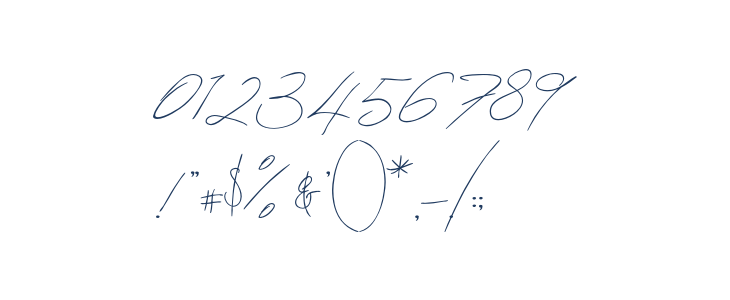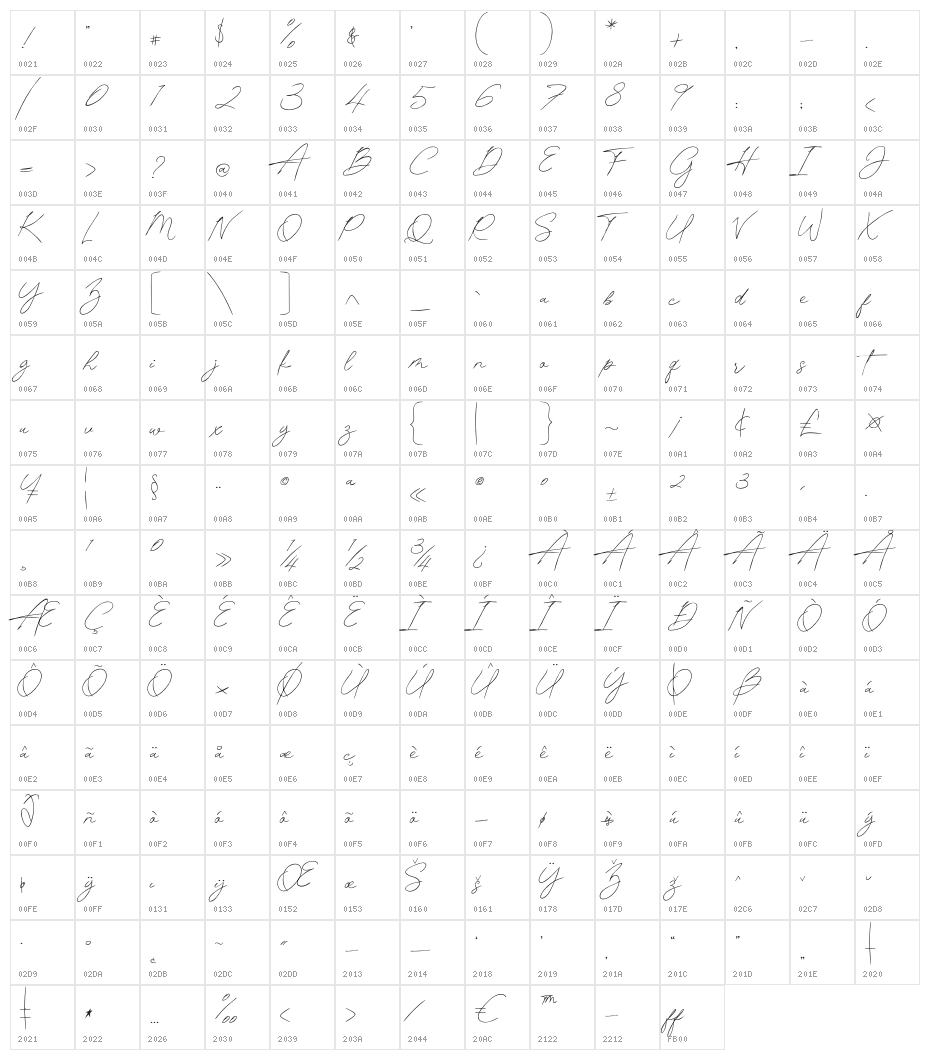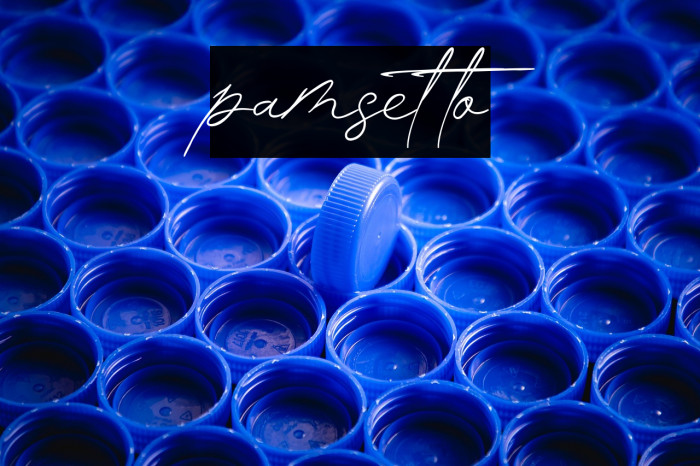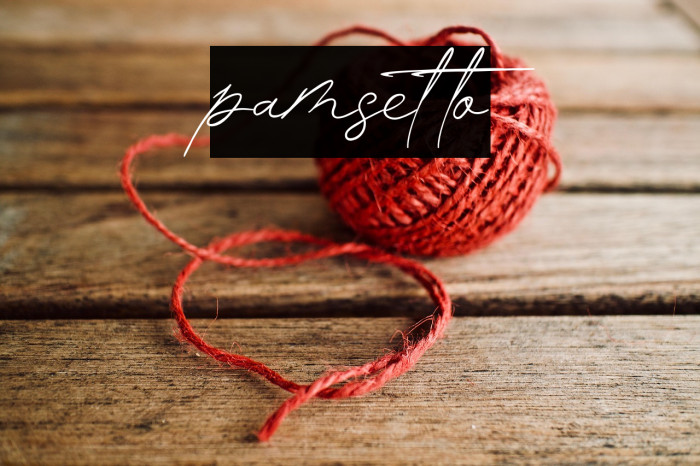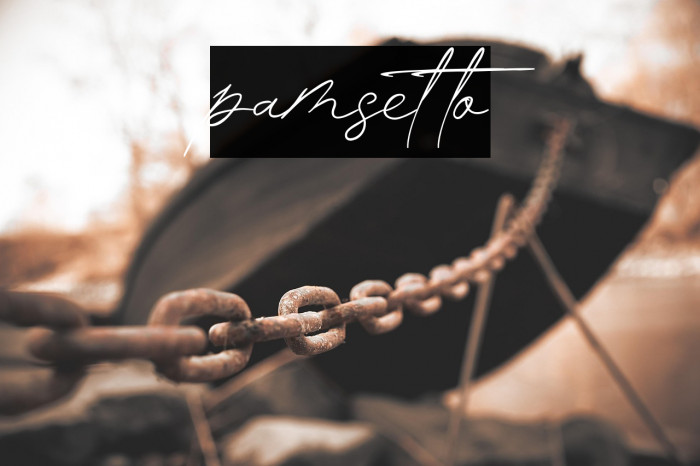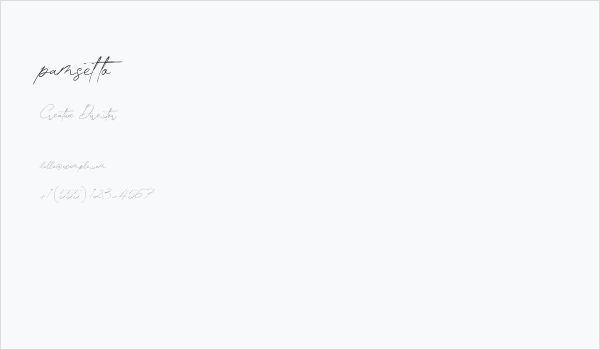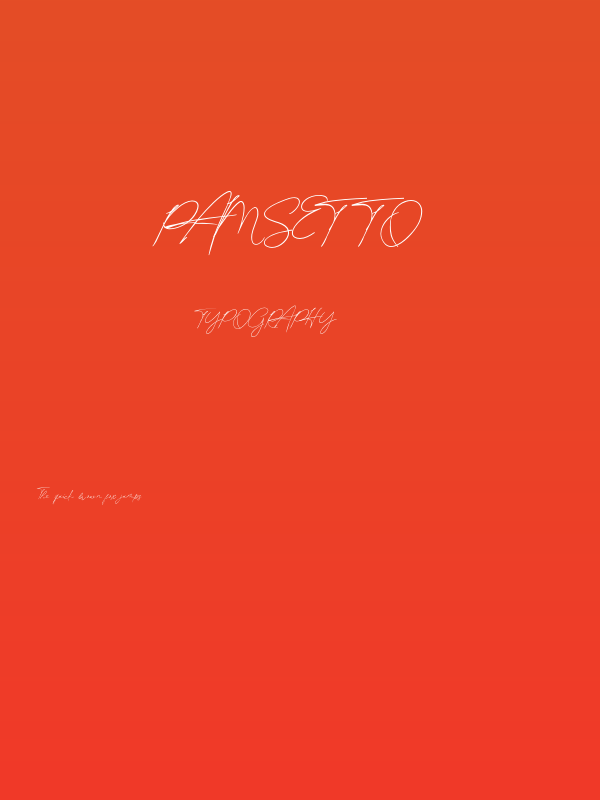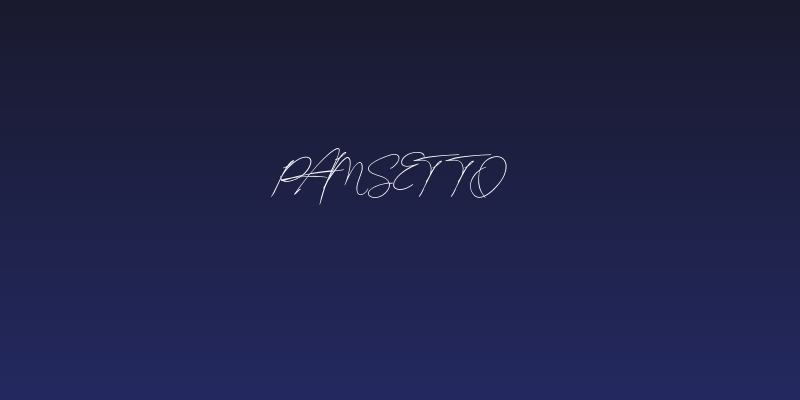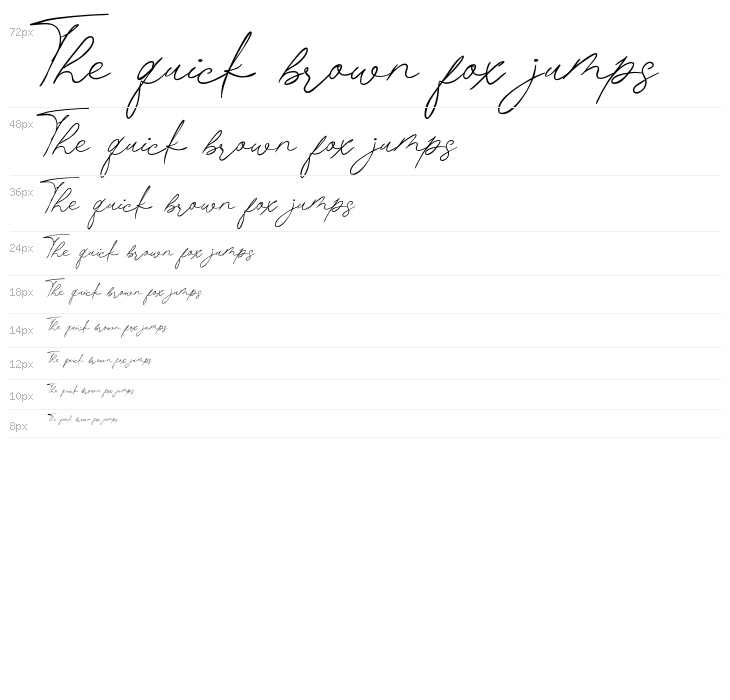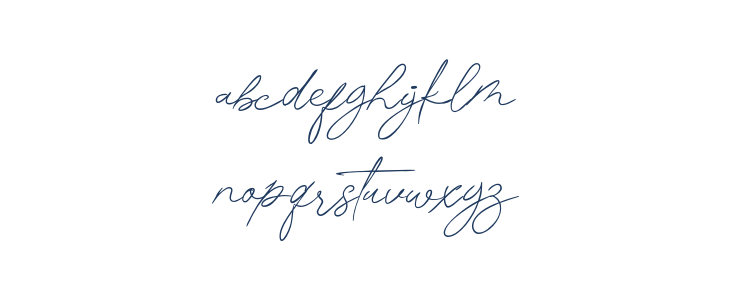
pamsetto Font
pamsetto Description
This font exhibits a fluid, cursive style that mimics elegant handwriting. The characters are connected with smooth, flowing lines, creating a sense of motion and grace. The uppercase letters are slightly more elaborate, with extended loops and swashes, while the lowercase letters maintain a consistent, flowing form. The numerals and special characters follow the same cursive style, ensuring uniformity across the font. The overall appearance is sophisticated and artistic, making it suitable for projects that require a personal touch or a sense of elegance.
| Overall Style | Elegant |
| Use Case | Logos, Invitations, Artistic projects |
| Proposed Projects | Ideal for wedding invitations, greeting cards, personal branding, and artistic projects. |